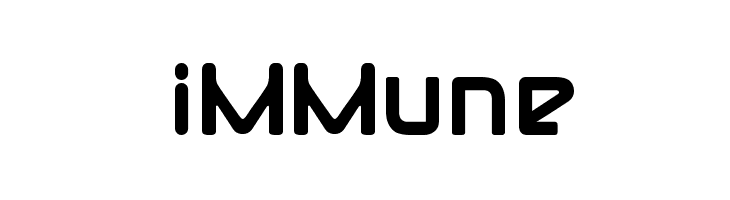
( iMM - Gianka Petracco - www.instagram.com/immcreativity/ )
A bold, futuristic font with geometric shapes and sharp angles.
设计师偏爱 iMMune, POINTOFPURCHASE, Undo36, boldLOUD and Genius Jempolan Royal,因为其造型干净、适用范围广—— 从品牌识别到落地页、海报都能胜任。